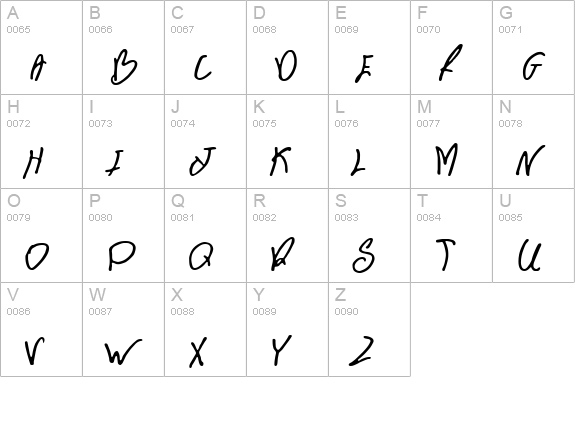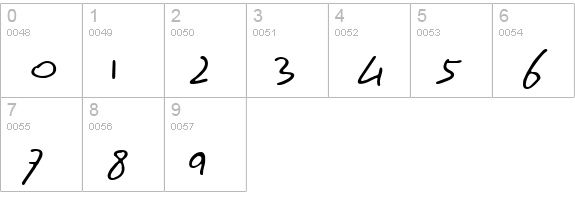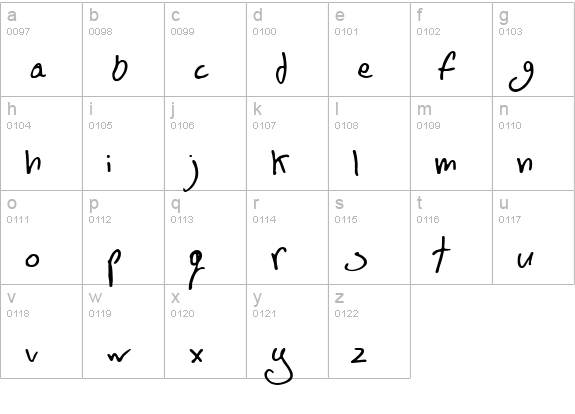
BN FontBoy Font Details
Introducing BN FontBoy, a stylish and modern font that exudes creativity and versatility. With its sleek lines and contemporary design, BN FontBoy is perfect for a wide range of projects, from branding to advertising to social media graphics. This free font offers a perfect balance of sophistication and playfulness, making it a great choice for anyone looking to make a statement with their typography. Best of all, BN FontBoy is freely available to download at FontsMarket.com, ensuring that you have easy access to this high-quality font for all your design needs. Whether you're a seasoned designer or just starting out, BN FontBoy is sure to elevate your projects and leave a lasting impression. Don't miss out on the opportunity to add this fantastic font to your collection today!